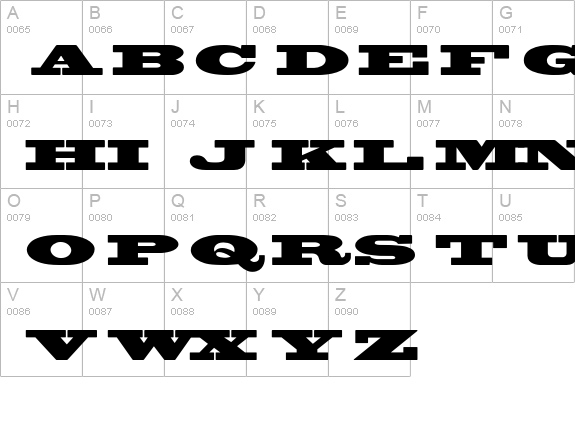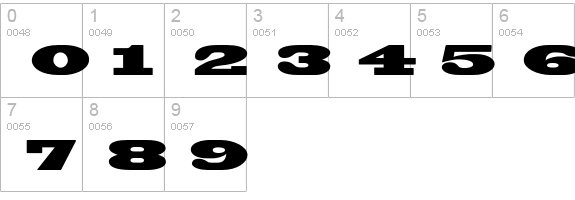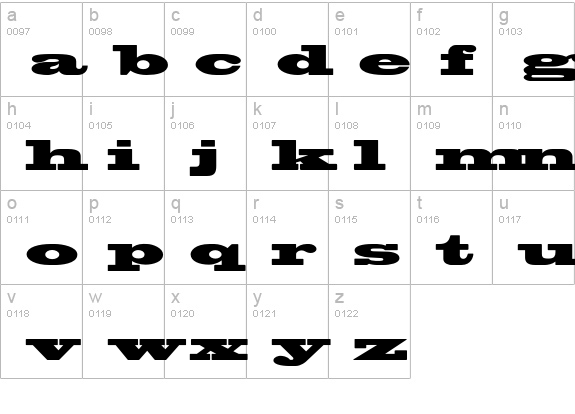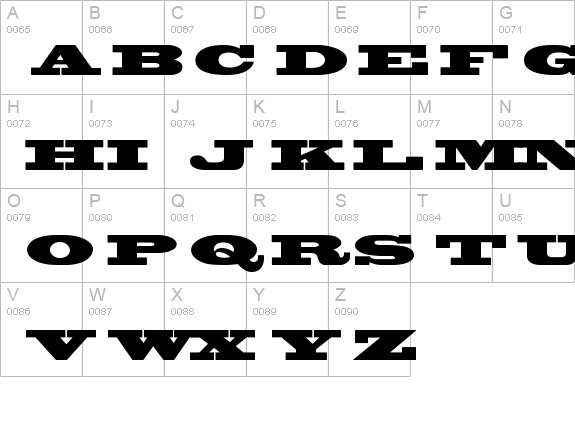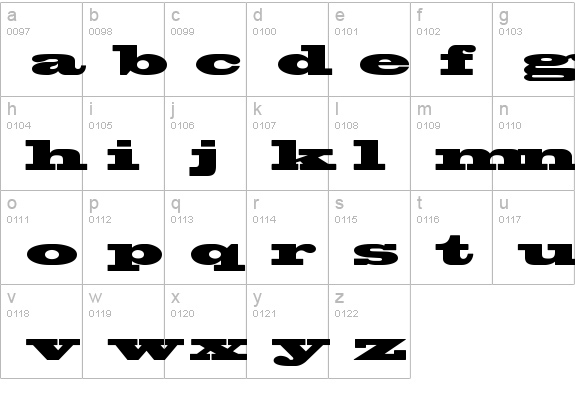
Blackoak Font Details
Introducing Blackoak font, a stylish and versatile typeface that exudes elegance and sophistication. Crafted with precision and attention to detail, Blackoak is perfect for a wide range of design projects, from branding to editorial design. This modern font features clean lines and a timeless aesthetic that will make your text stand out. Whether you're creating a logo, poster, or website, Blackoak will add a touch of class to your designs. Best of all, Blackoak is available for free download at FontsMarket.com. So why wait? Elevate your projects with this stunning font today!